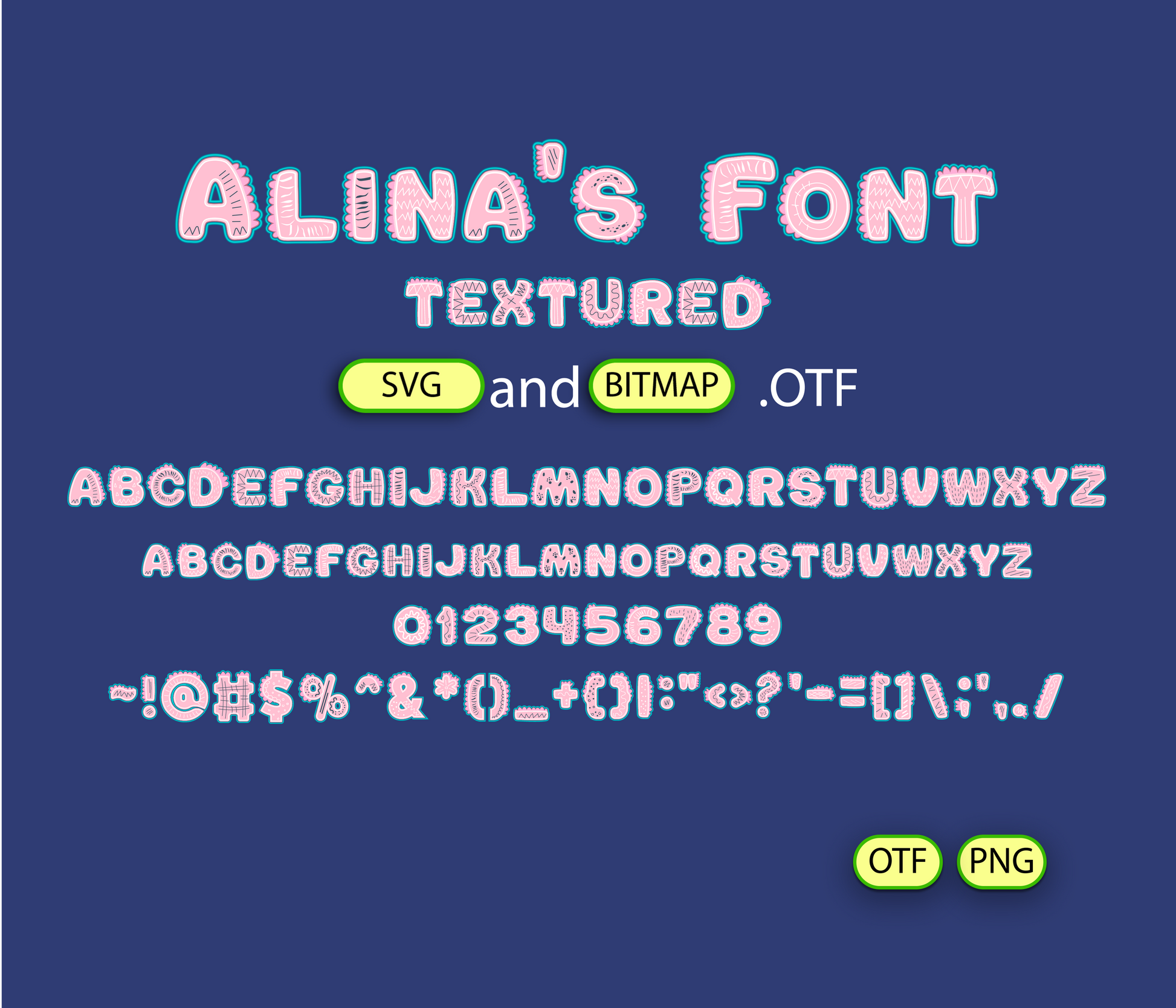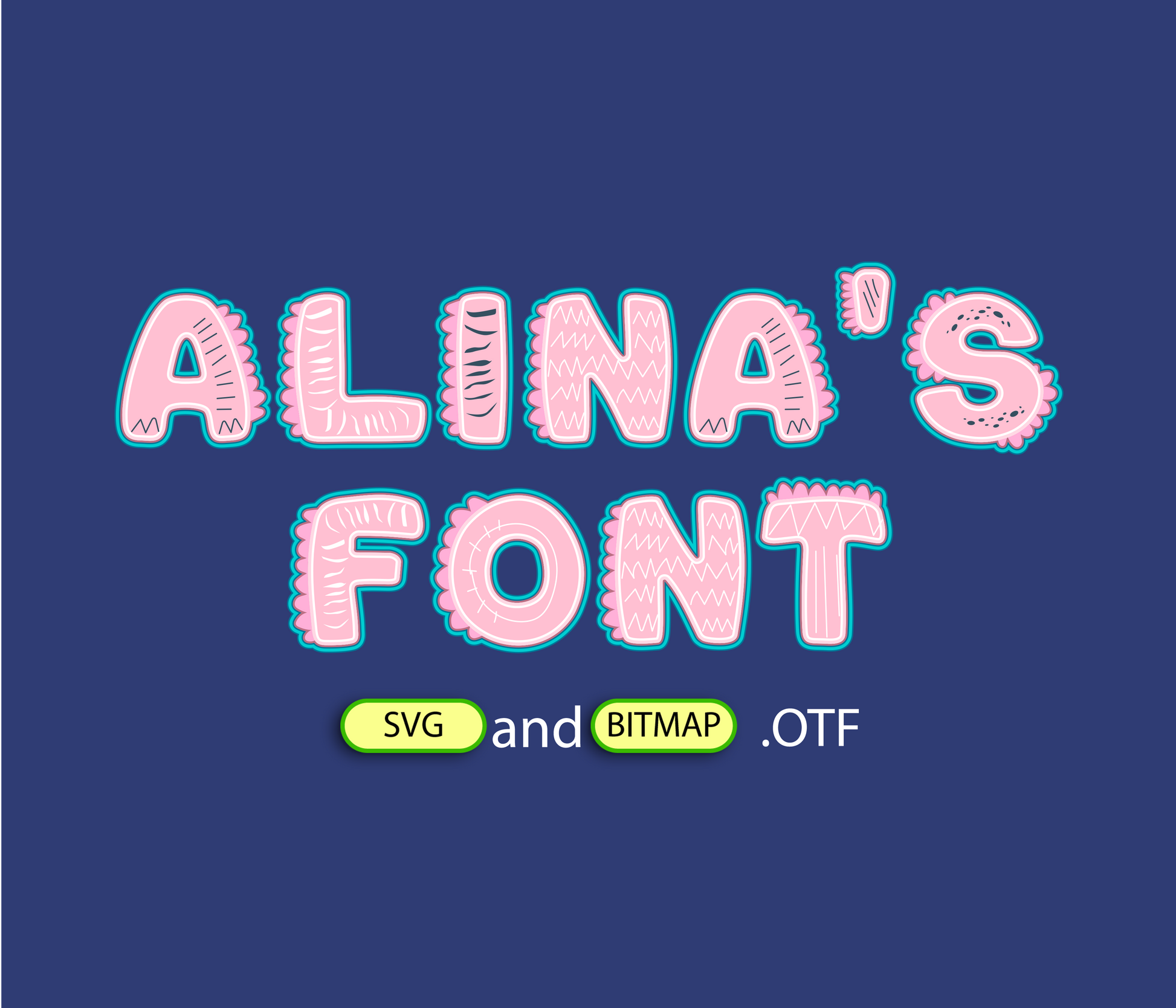
Dinosaur Pink Pattern Font
Dinosaur Pink Textured Font
Journey into the awe-inspiring era of dinosaurs with our Dinosaur font, a typeface that captures the essence of these magnificent prehistoric creatures. This font is designed to reflect the grandeur and diversity of the dinosaur kingdom, from the towering might of the T-Rex to the graceful strides of the Diplodocus. Each character in the Dinosaur font is crafted to evoke the sense of wonder and intrigue that these ancient beings inspire, making it ideal for projects aimed at bringing the prehistoric world to life.
What Font is Dinosaur Font?
Envision a typeface that embodies the bold and primal nature of dinosaurs. Our Dinosaur font is created to mirror the robust and striking features of these creatures, with a focus on strong, sturdy letterforms that echo the strength and presence of dinosaurs. It includes an extensive character set with alphabets, numbers, and special symbols, offering a versatile toolkit for a wide range of design projects, whether it’s for educational content, themed merchandise, or creative storytelling.
What Can You Do With Dinosaur Font?
The Dinosaur font is versatile and perfect for various creative and educational applications:
- Educational Materials: Ideal for creating engaging teaching aids, books, and resources about dinosaurs and paleontology.
- Themed Event Invitations: Craft exciting invitations for dinosaur-themed parties, exhibitions, or museum events.
- Merchandise Design: Design appealing t-shirts, posters, and toys for dinosaur enthusiasts of all ages.
- Digital Content and Social Media: Use the font to add a prehistoric touch to websites, blogs, and social media posts about dinosaurs or natural history.
- Museum and Exhibition Signage: Enhance informational displays and signage in museums or educational centers.
- Greeting Cards and Stationery: Create personalized stationery or greeting cards with a dinosaur theme.
- Interior Decor: Use the font for wall art, decals, or signage in children's rooms, classrooms, or themed spaces.
- Promotional Materials: Employ in marketing and advertising materials for events, documentaries, or products related to dinosaurs.
- Book and Magazine Design: Apply the font to publications focusing on science, history, or children's literature.
- Creative Art Projects: Perfect for crafting, scrapbooking, and artistic projects inspired by the prehistoric era.
- Textured and Non-Textured Variants: Each font is available in both a rugged, prehistoric style and a clean, non-textured version for diverse design needs.
- Comprehensive Character Set: Offers a wide range of characters for complete design versatility.
The Dinosaur-inspired font is more than just a typeface; it's an invitation to the fascinating world of these ancient creatures.